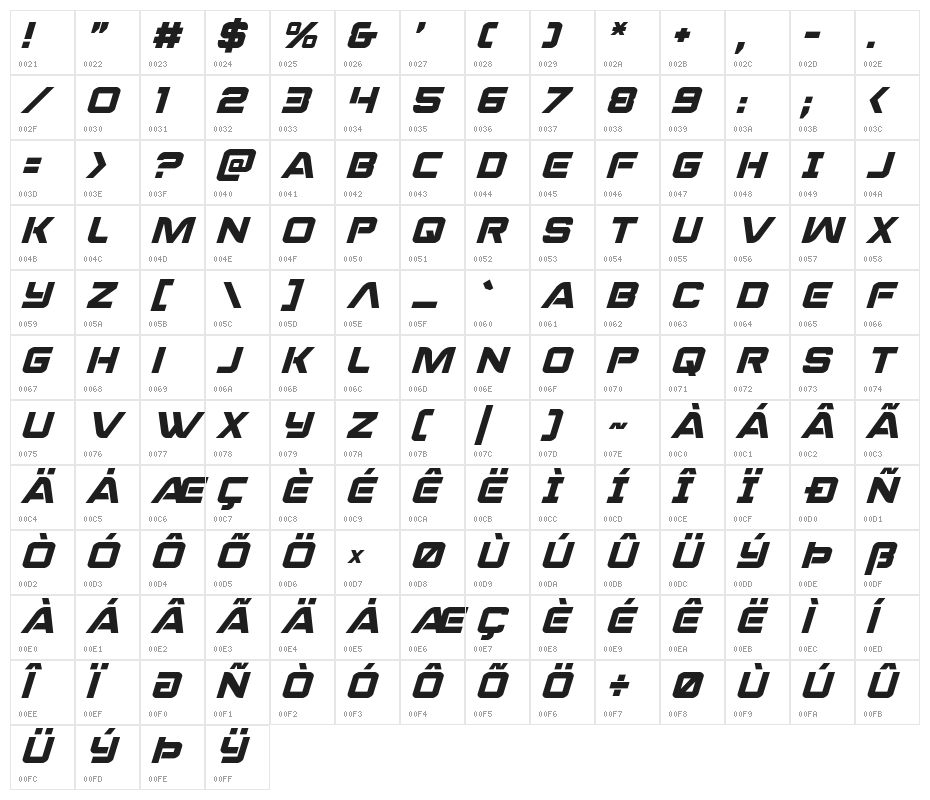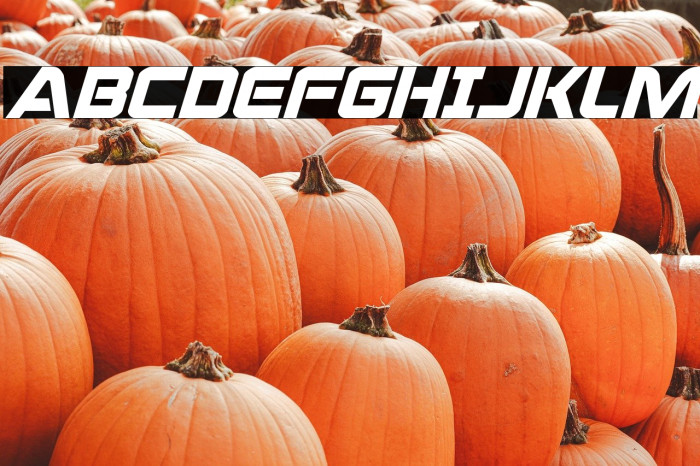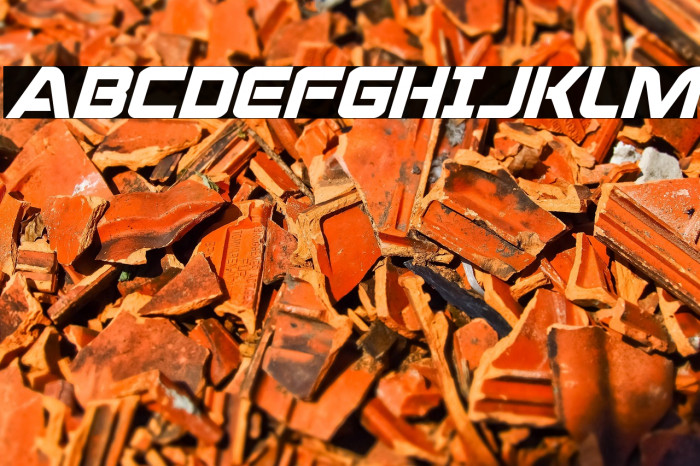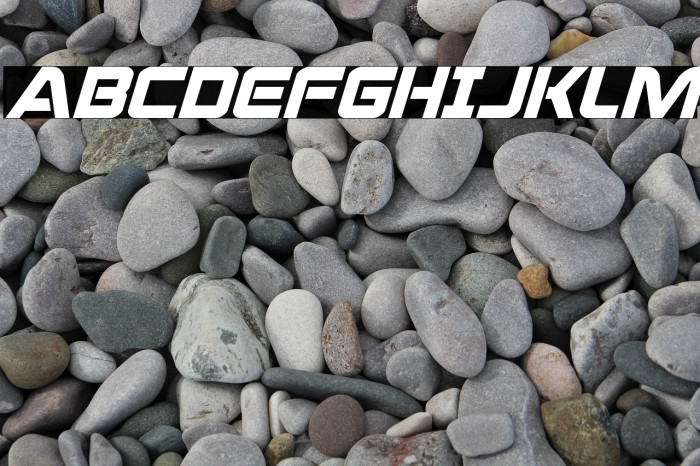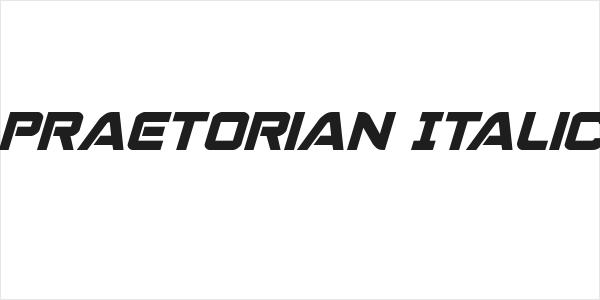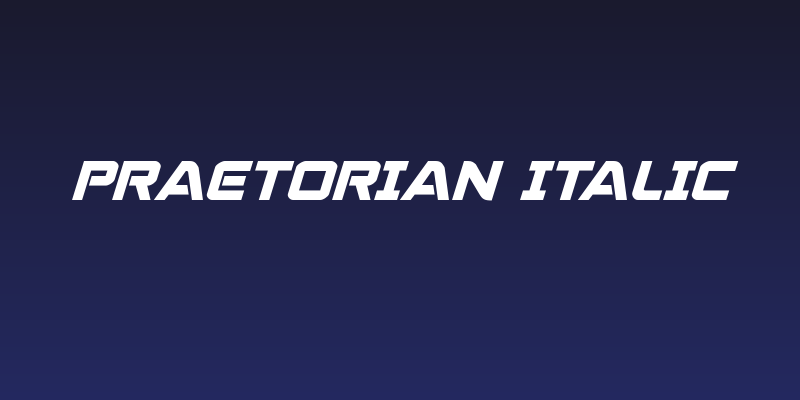
Praetorian Italic Font
Praetorian Italic Description
This font exhibits a bold and dynamic style, characterized by its italicized and angular letterforms. The uppercase and lowercase letters maintain a consistent slant, giving a sense of motion and speed. The numbers and special characters follow the same design principles, ensuring uniformity across all glyphs. The strokes are thick, providing a strong visual impact, while the character spacing is relatively tight, enhancing the compact and cohesive appearance. This font is well-suited for attention-grabbing headlines and logos, where a modern and assertive look is desired.
| Proposed Projects | Perfect for sports branding, automotive advertisements, dynamic posters, and modern logo designs. |